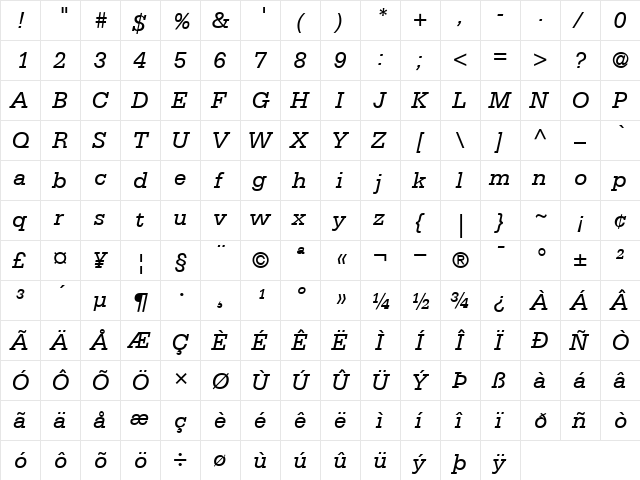
Serifa56 RomanItalic
Design Context for Serifa56 Typeface
Serifa56 brings classic typographic sensibility to the table — its serifs and measured letterforms reflect centuries of print heritage. Its italic angle brings a sense of urgency and motion to the letterforms.
Pro Tip: Use Serifa56 for editorial body copy and considered headline work. Pair with a neutral sans for UI elements or captions to create a classic hierarchy.